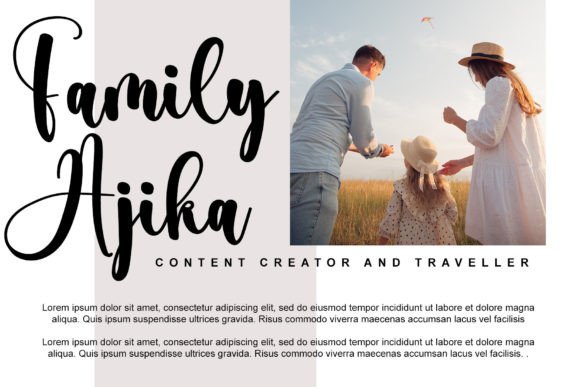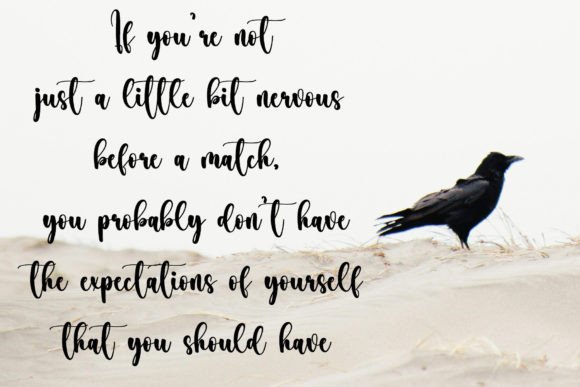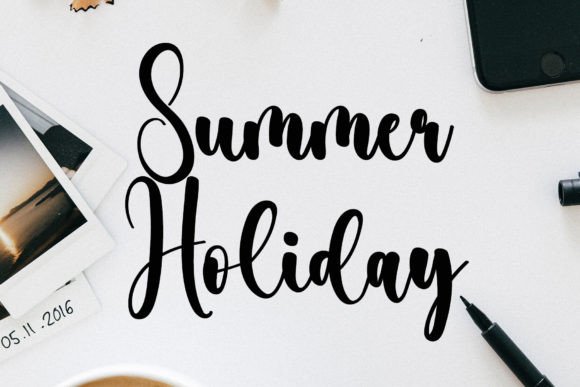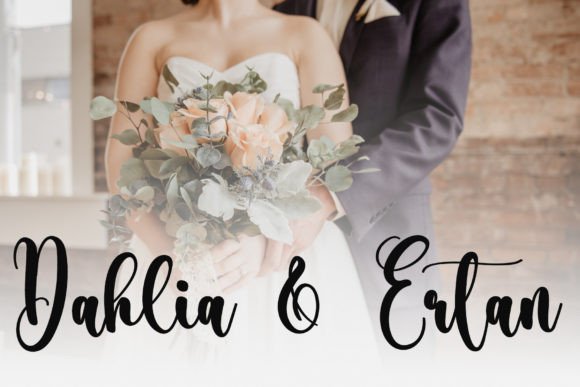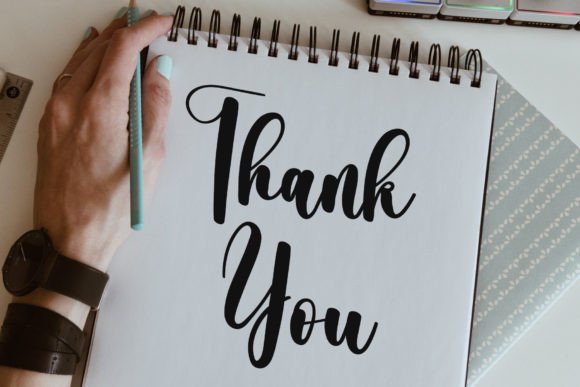
Introducing Backstage Font: Elevate Your Designs with Timeless Elegance
Are you on the hunt for a font that exudes sophistication, elegance, and a touch of classic charm? Look no further than Backstage Font, a stylish handwritten typeface that is sure to elevate your designs to new heights. Inspired by the timeless beauty of classic calligraphy, Backstage Font brings a contemporary atmosphere to the table, making it the perfect addition to any project.
The Inspiration Behind Backstage Font
Backstage Font is a masterful blend of traditional calligraphy and modern design sensibilities. Its creator drew inspiration from the classic scripts of the past, carefully crafting each letterform to embody the essence of impeccable form. The result is a font that feels both nostalgic and fresh, perfect for designers and crafters looking to add a touch of sophistication to their work.
Key Features of Backstage Font
- Balanced and Varied: Backstage Font boasts a beautifully balanced design, with a range of letterforms that cater to different tastes and preferences. Whether you’re looking for a elegant headline or a more playful, cursive script, Backstage Font has got you covered.
- Contemporary Atmosphere: While Backstage Font draws inspiration from classic calligraphy, its design is firmly rooted in the present. The font’s clean lines, subtle curves, and carefully crafted letterforms give it a distinctly modern feel that’s perfect for contemporary designs.
- Impeccable Form: Each letterform in Backstage Font has been meticulously crafted to ensure that it meets the highest standards of typographic excellence. The result is a font that feels both refined and luxurious.
Why Choose Backstage Font?
So why should you choose Backstage Font for your next project? Here are just a few compelling reasons:
- Versatility: Backstage Font is incredibly versatile, making it suitable for a wide range of applications, from elegant wedding invitations to sophisticated branding and packaging.
- Elegance: With its classic inspiration and modern design sensibilities, Backstage Font brings a level of elegance to any project that’s hard to match.
- Easy to Read: Despite its elegant design, Backstage Font is remarkably easy to read, making it perfect for both headlines and body text.
Using Backstage Font in Your Designs
Backstage Font is incredibly easy to use, even for designers who are new to working with handwritten fonts. Here are a few tips to get you started:
- Pair it with a Sans Serif: For a striking contrast, try pairing Backstage Font with a clean sans serif font. This combination works particularly well for headings and body text.
- Experiment with Colors: Backstage Font looks stunning in a range of colors, from rich blacks and deep blues to soft pastels. Don’t be afraid to experiment and find the perfect hue for your project.
- Play with Ligatures: Backstage Font comes with a range of beautiful ligatures that can add an extra touch of elegance to your designs. Experiment with different combinations to see what works best for your project.
Backstage Font is a truly exceptional typeface that brings a level of sophistication and elegance to any project. With its timeless inspiration, contemporary atmosphere, and impeccable form, it’s the perfect choice for designers and crafters looking to elevate their designs. Whether you’re working on a wedding invitation, a branding project, or simply looking for a beautiful font to add to your collection, Backstage Font is sure to impress.